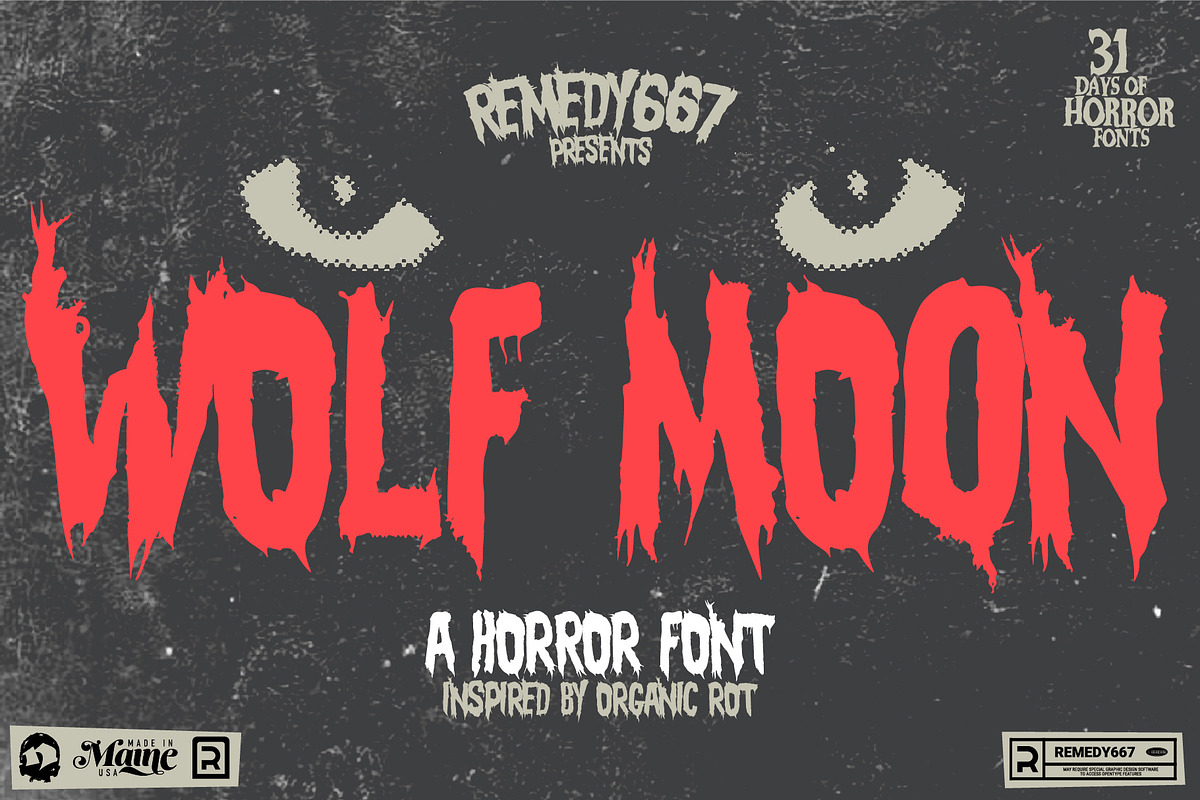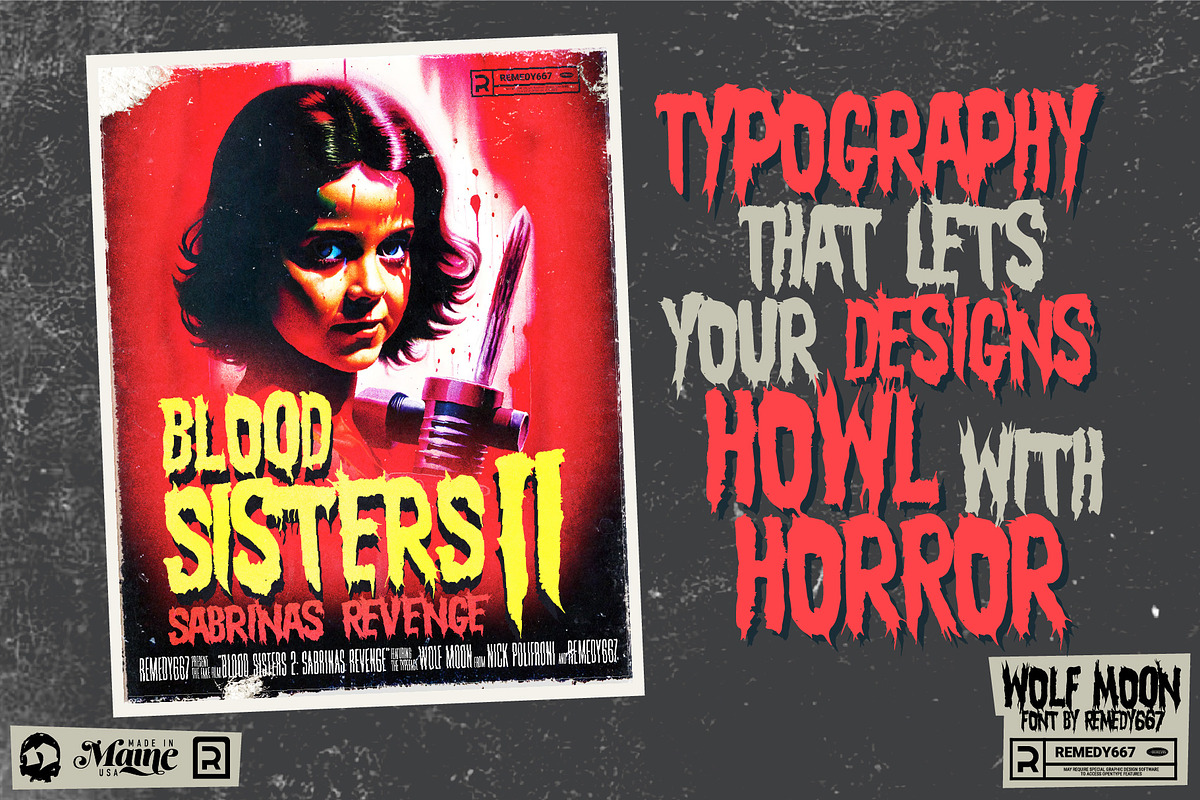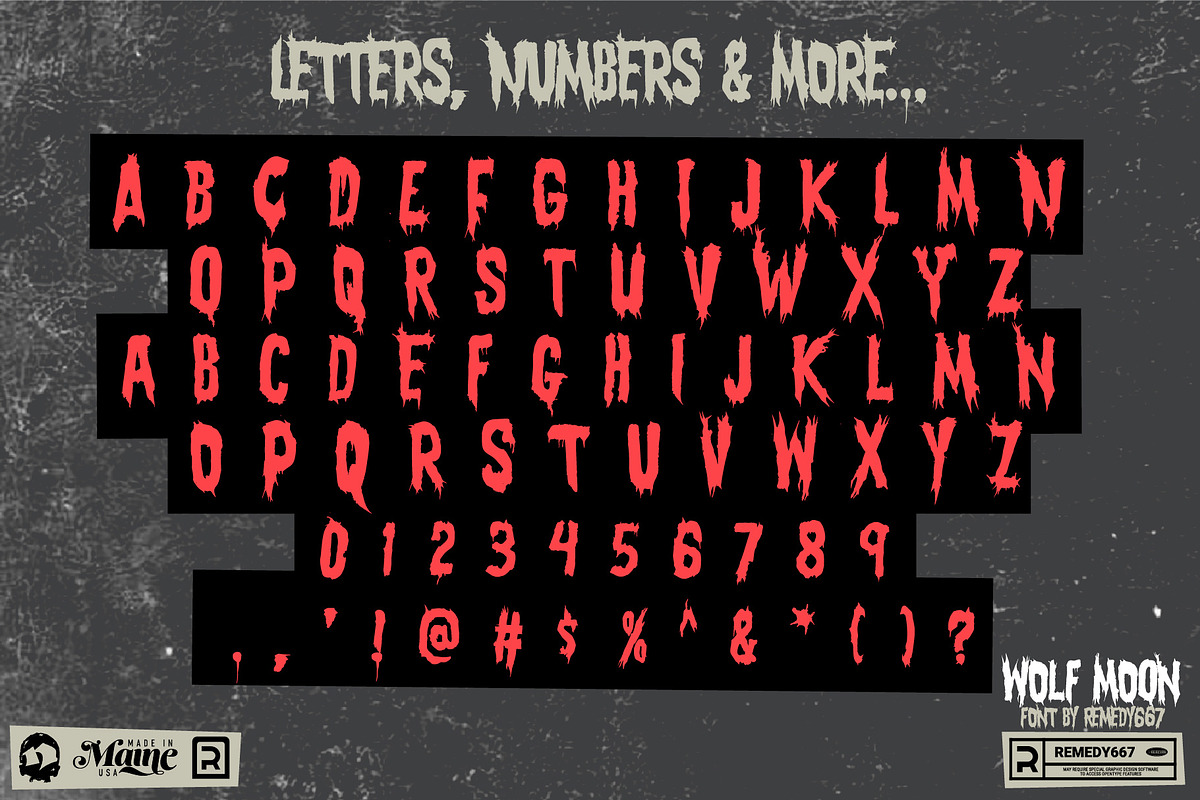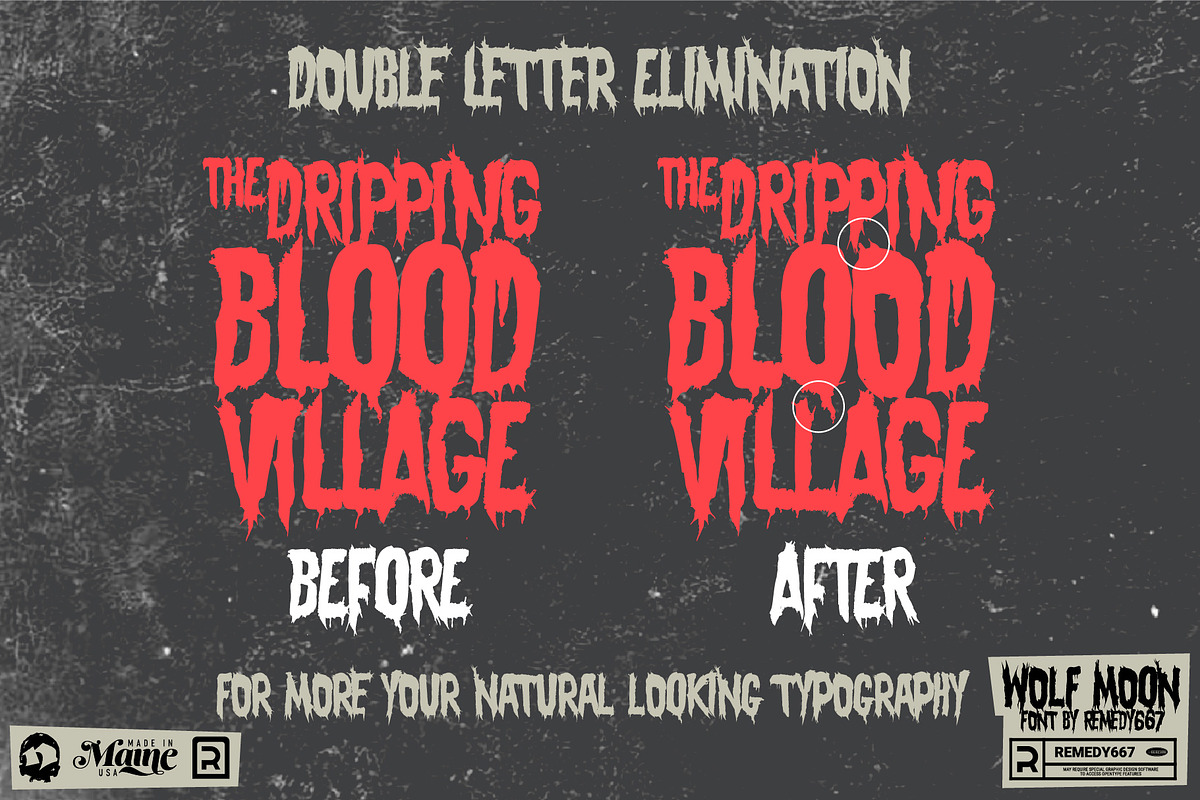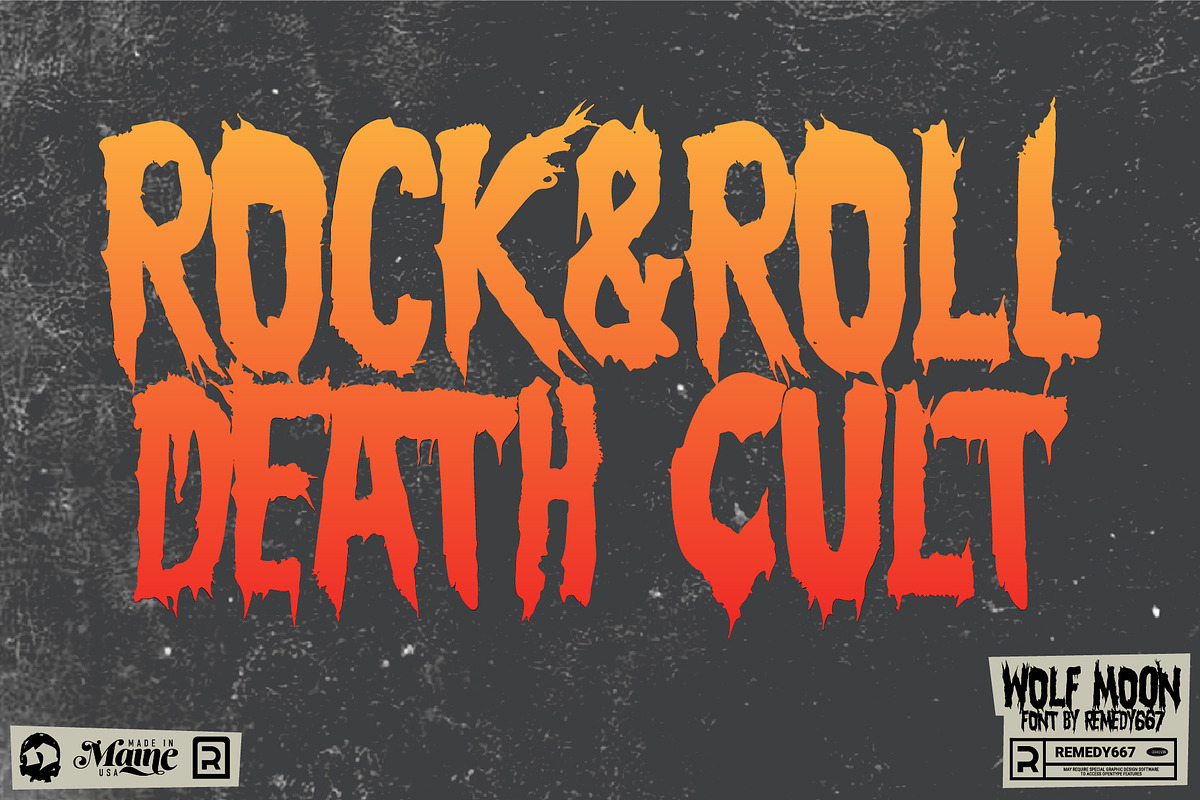
Wolf Moon Spooky Font
Introducing Wolf Moon, the gritty, crusty horror font that will make your logos, titles and designs stand out! Inspired by organic rot and crafted with jagged interlocking lines, Wolf Moon will bring a spooky edge to your projects. Perfect for creating dark, bold designs that capture attention
Wolf Moon can bring a unique atmosphere to any project. Whether you’re looking for an inspired logo or an eerie font for your next horror movie project, Let your designs howl with Wolf Moon from Remedy667.
- Perfect for logos, posters, titles or other artwork that needs something special to stand out.
- Jagged edges and imperfect lines add a touch of dread to any design.
- Ideal for creating logos and letterforms with a distinctive and eerie aesthetic.
- Doubles Elimination for letters and numbers allows you to create natural looking text with ease.